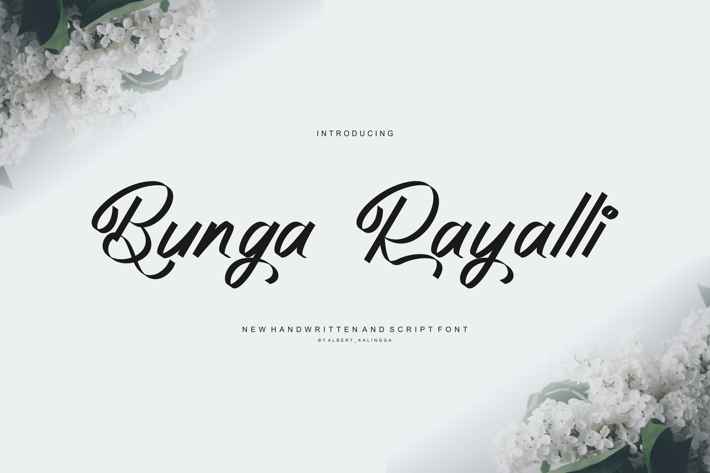
Bunga Rayalli Font
albert_kalingga
Introducing our new product Bunga Rayalli Font - Modern Font
Bunga Rayalli Font - Modern Font is a bold and authentic display font. The font is suitable for any branding project like logo, esport, and many more. outstanding in a wide range of contexts.